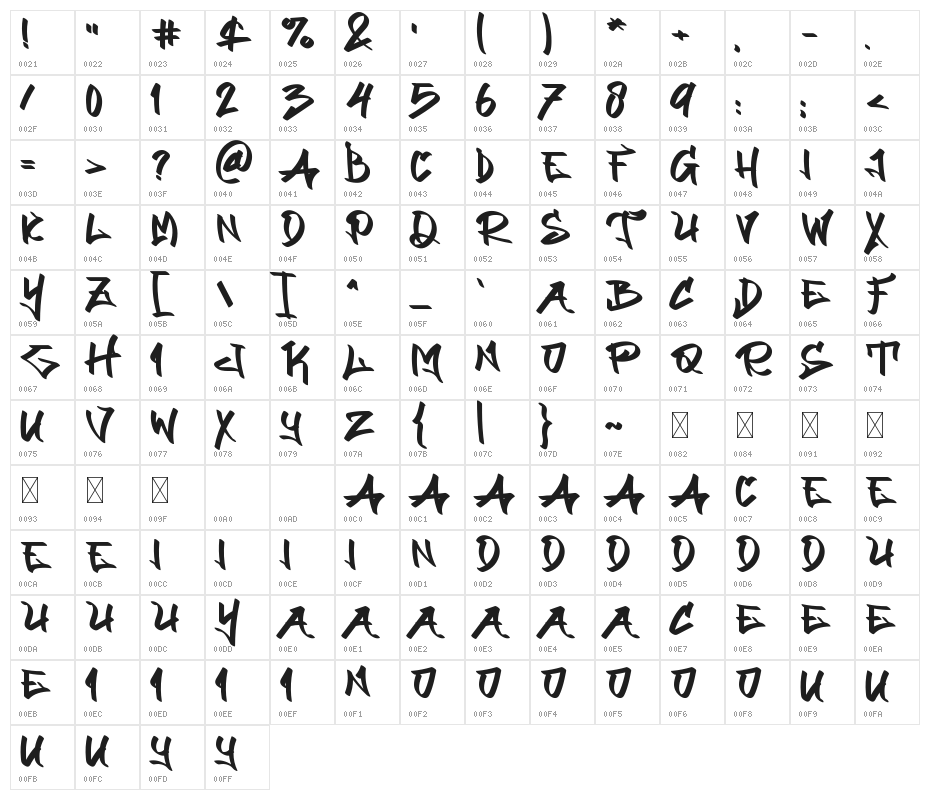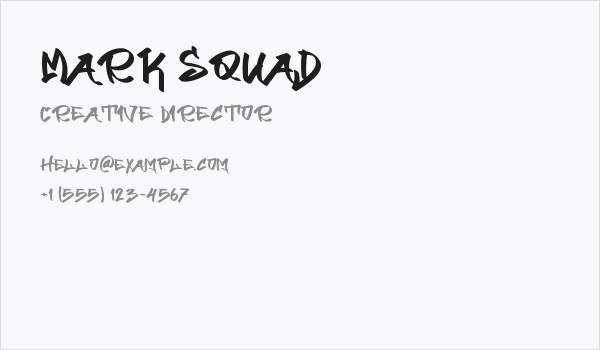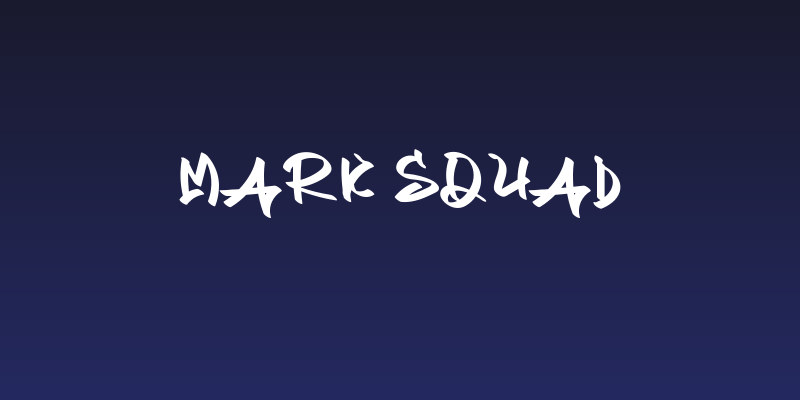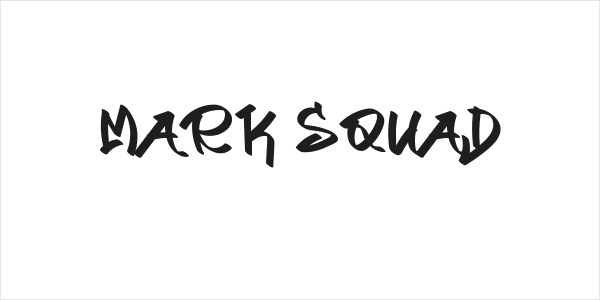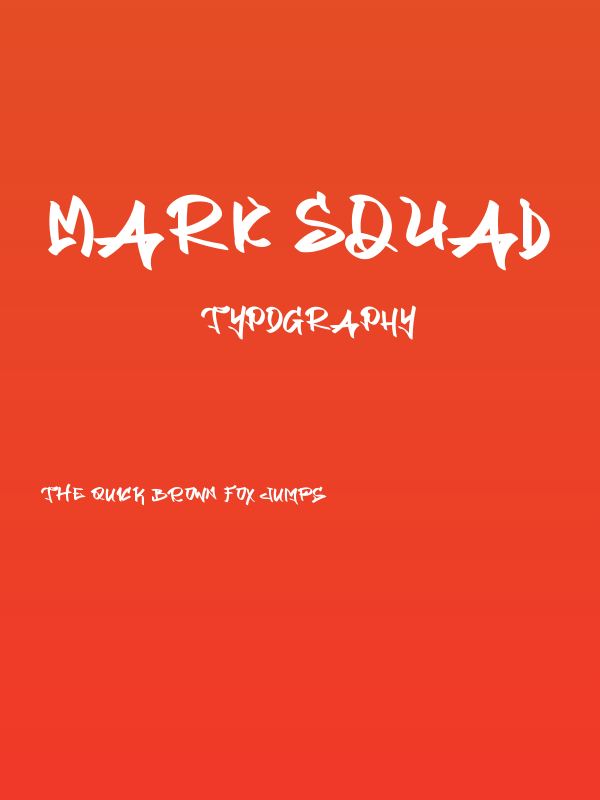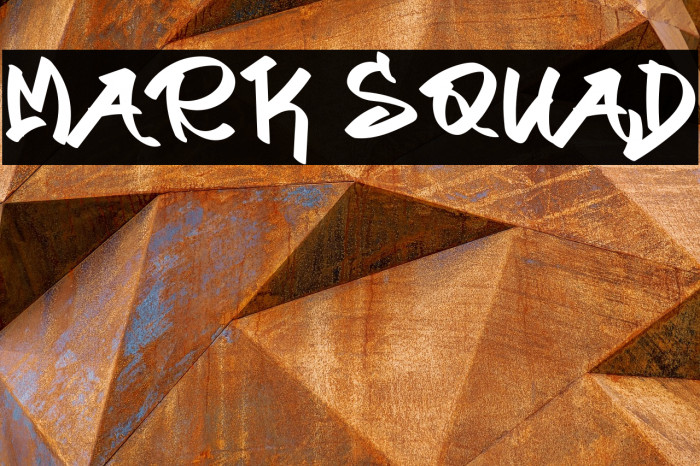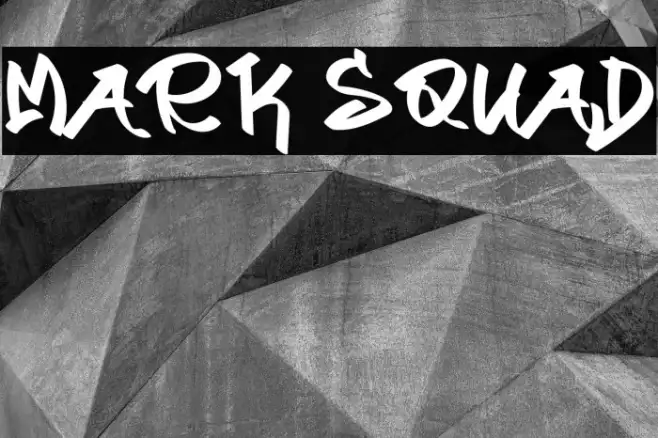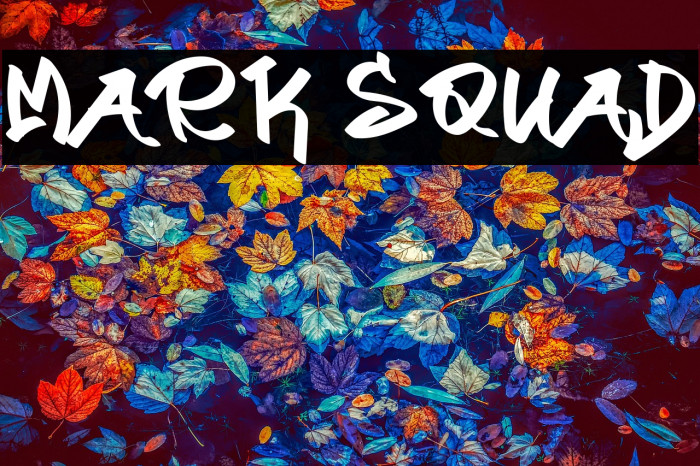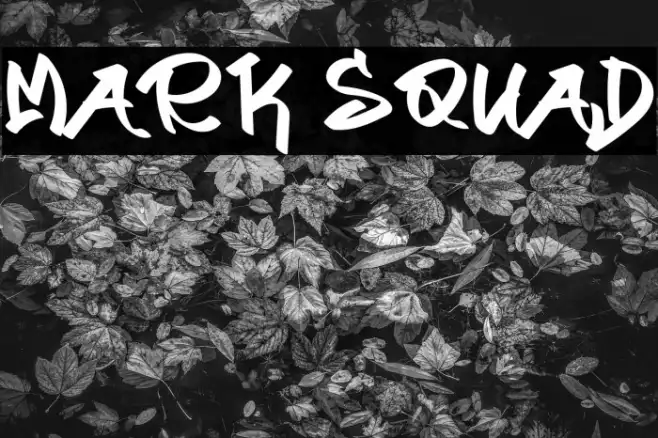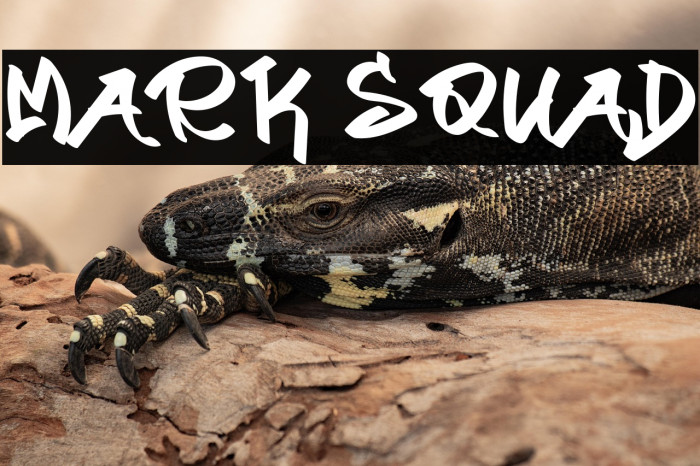
Mark Squad Font
Mark Squad Description
This font features a bold, graffiti-inspired style with dynamic, angular strokes and a strong presence. Each character is crafted with a sense of movement and energy, making it ideal for designs that require a bold statement. The uppercase and lowercase letters maintain a consistent style, with exaggerated curves and sharp edges that convey a sense of urban flair. The numerals and special characters are equally expressive, ensuring a cohesive look across all text elements. The overall design is both modern and edgy, perfect for projects that aim to capture attention with a rebellious spirit.
| Overall Style | Modern, Urban, Edgy |
| Proposed Projects | Ideal for street art designs, music album covers, event posters, and urban-themed branding. |